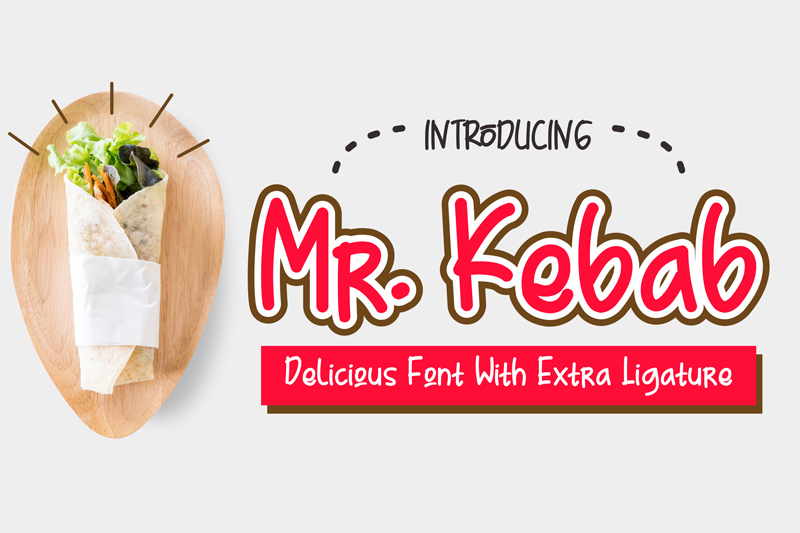
Preview and download Mr. Kebab Font. Created by Ibnu Utomo in Script Handwritten styles with Free for personal use license.
Mr. Kebab Delicious Font With Extra Ligature can be applied to many of your precious moments, don�t forget there are also alternative ligature that make this font so fun. There are more additions dashed line that you can enter manually to look different styles and there are dozens of additional doodle & badges completing this font. You can make as posters, titles, quotes, packaging, invitations, brand identity, and many more. This demo font is for PERSONAL USE ONLY! But any donation are very appreciated. Paypal account for donation : https://www.paypal.me/Omotu Link to purchase full version and commercial license : https://fontbundles.net/omotu/169259-mr-kebab-script-font Please visit our store: https://fontbundles.net/omotu https://www.creativefabrica.com/designer/omotu/ Thank you. |